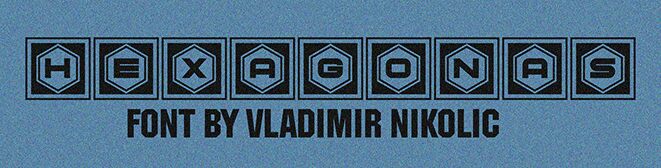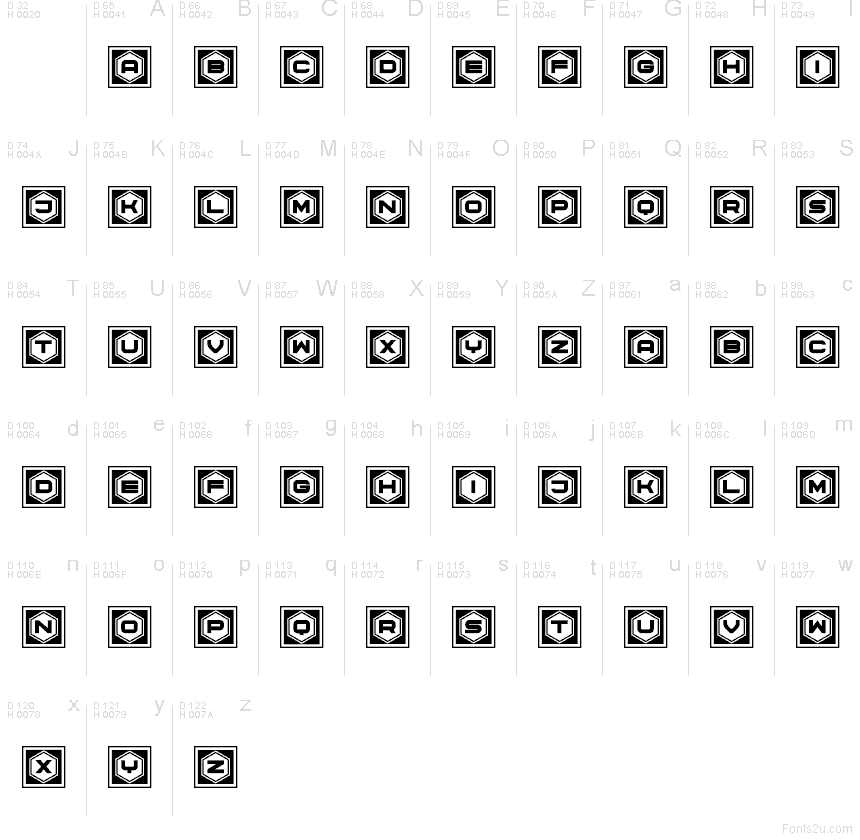
Hexagonas Retro font by Vladimir Nikolic is a free decorative display typeface that turns every letter into a bold, hexagonal badge. Each character sits inside a crisp, outlined cell, like a row of retro arcade buttons or industrial labels marching across the page. The sturdy geometry, sharp corners, and strong black–white contrast give the Hexagonas family a rigid, engineered feel that instantly structures your layout.
Using Hexagonas Retro, you’re essentially typesetting with icons, which makes this free font shine on logos, esports branding, sci-fi titles, posters, badges, and signage. Its modular rhythm reads best at larger sizes, where the hex shapes can snap into place. Pair this font with a simple, neutral sans serif for body copy to let the hexagons handle the heavy lifting in your headline.